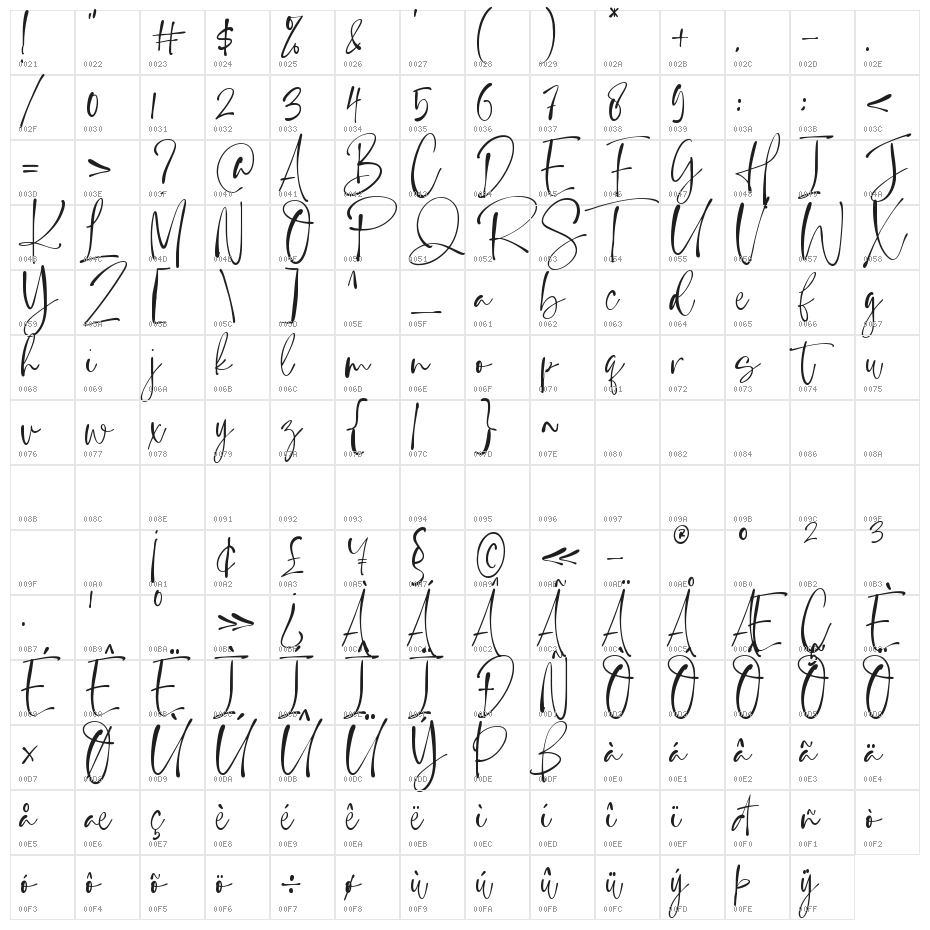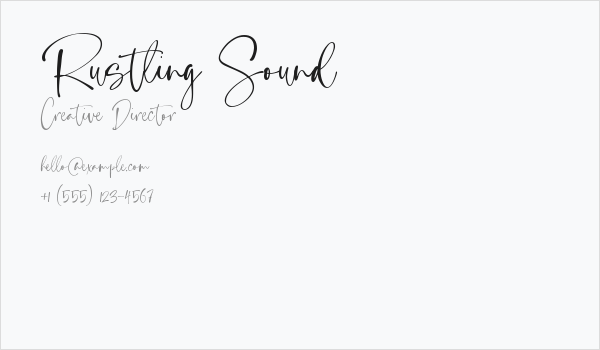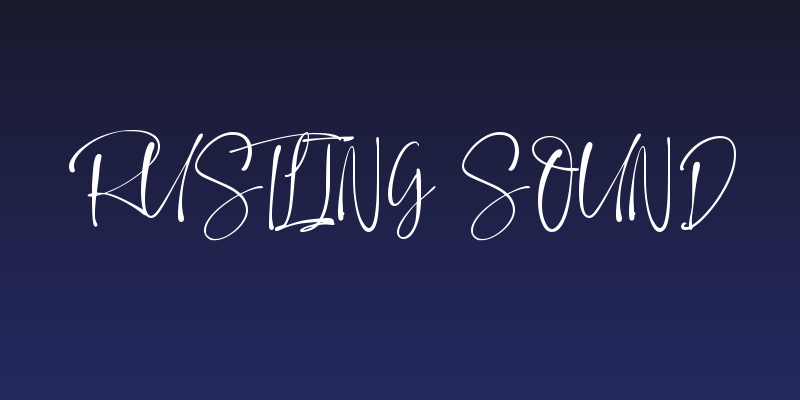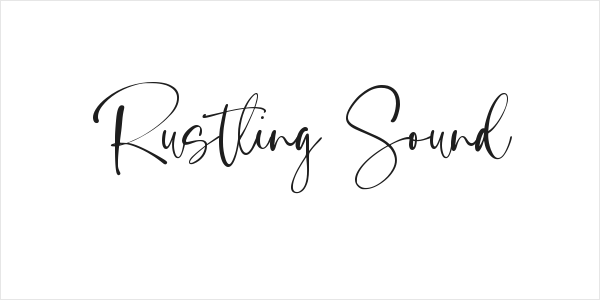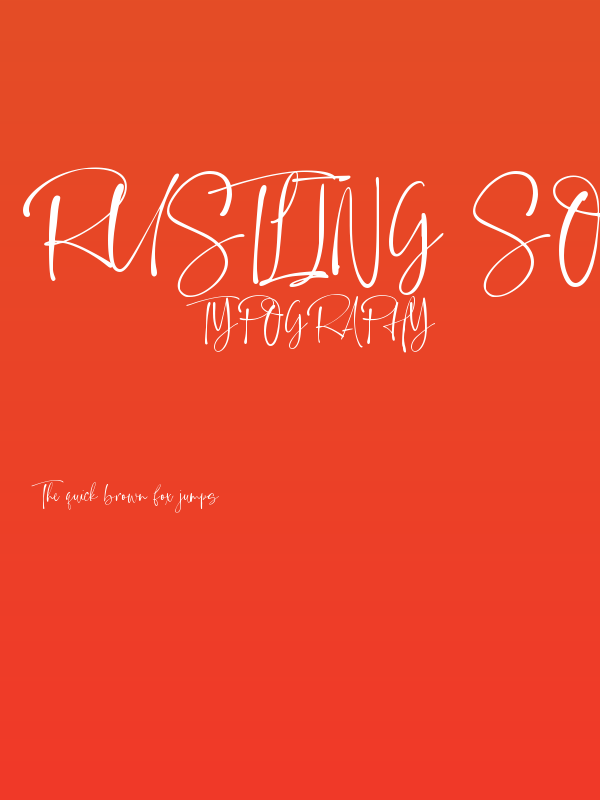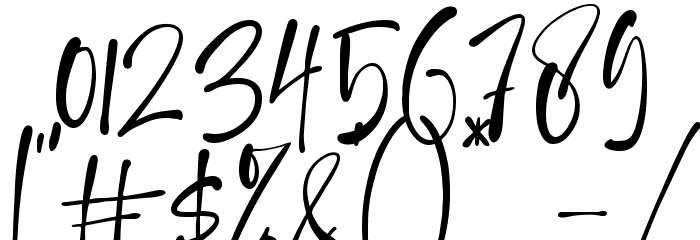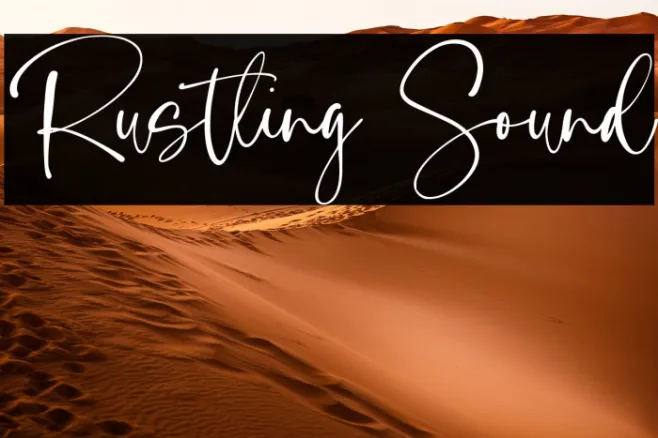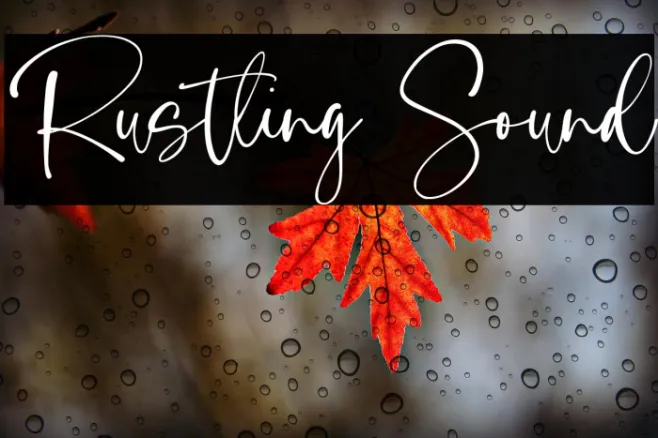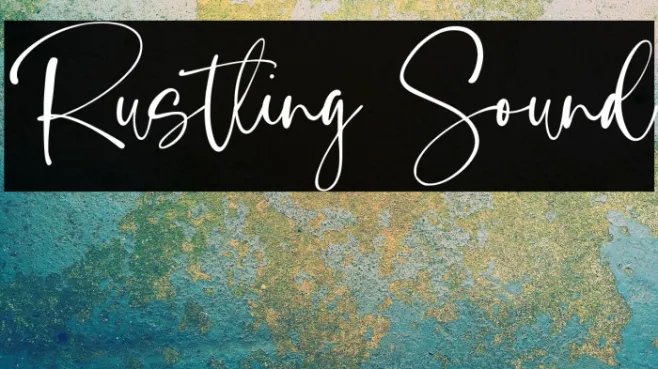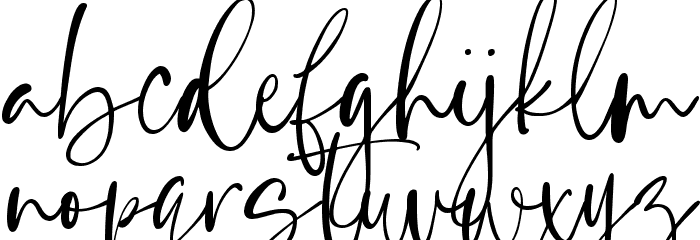
Rustling Sound Font
Rustling Sound Description
This font features a dynamic and expressive handwritten style, characterized by its fluid and flowing letterforms. The uppercase letters exhibit a playful yet elegant flair, with varying stroke widths that add a sense of movement and energy. The lowercase letters maintain a consistent style, complementing the uppercase with their own unique charm. Numbers and special characters are crafted with the same attention to detail, ensuring a cohesive look across all elements. The overall design is both modern and artistic, making it suitable for creative projects that require a personal touch.
| Proposed Projects | Ideal for invitations, greeting cards, branding, and artistic projects that require a personal and creative touch. |